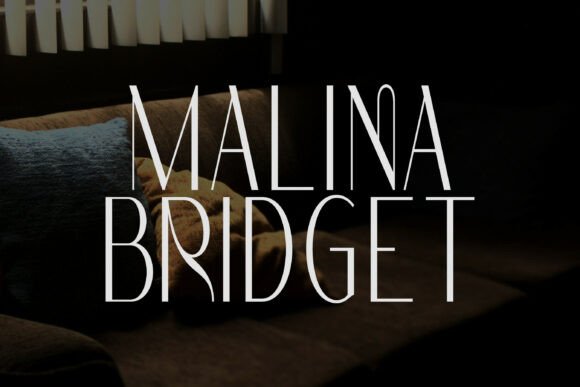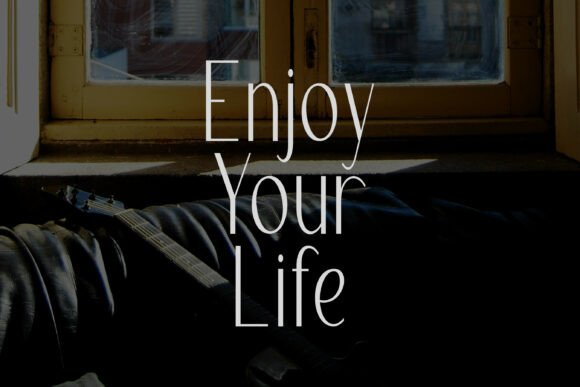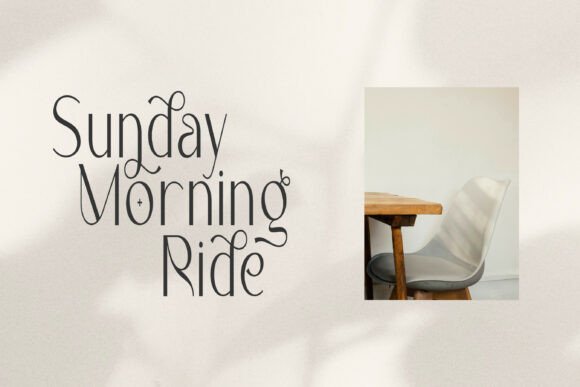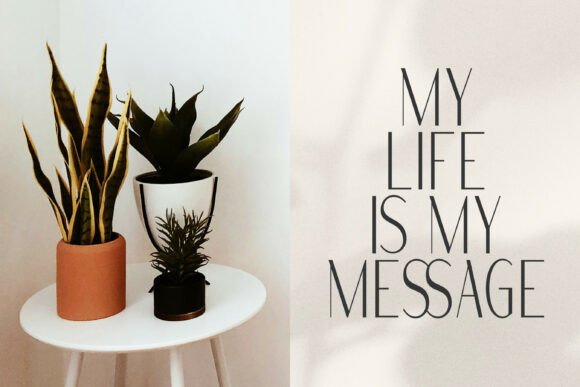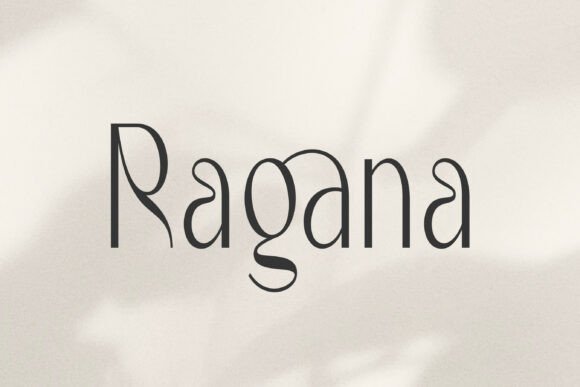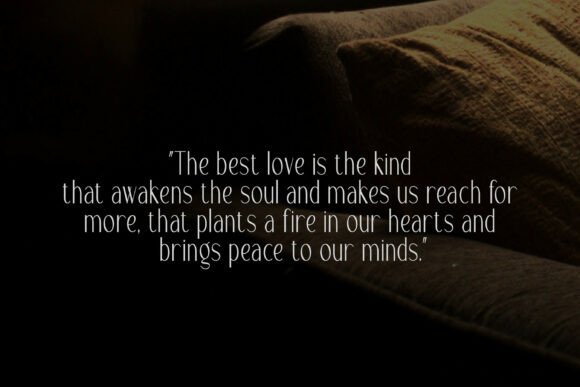
First Impressions: A Love Affair with Gauri
Gauri is a masterclass in balancing minimalism with personality. Its sleek letterforms are infused with subtle curvatures and artistic details, creating a refined yet distinctive look. This font is perfectly suited for editorial layouts, branding, and high-end design, bringing a touch of sophistication and creativity to every composition.
An Honest Review: The Good, the Bad, and the Quirks
- ✨ Elegant and refined aesthetic: Gauri’s sleek design makes it perfect for high-end branding and editorial projects.
- ✅ Excellent readability: The font’s clean lines and subtle curvatures ensure that it remains legible even at smaller sizes.
- 💡 OpenType features: Gauri supports a range of OpenType features, including stylistic alternates and glyphs, giving designers plenty of creative options.
Small Quirks and Limitations:
- 🤔 Limited availability of weights: Gauri is currently available in a limited range of weights, which may not be suitable for all design applications.
- ⚠️ Some glyphs may require manual adjustment: While Gauri’s glyph set is extensive, some users may need to make manual adjustments to achieve optimal results.
Exploring Alternatives: Similar Fonts to Gauri
The Story Behind Gauri: Designer Inspiration
Gauri was designed with the goal of creating a font that embodies elegance and sophistication without excess. The designer’s inspiration came from a range of sources, including classic typography and modern design trends. The result is a font that is both refined and distinctive, perfect for designers seeking a touch of luxury in their work.
Q: What is Gauri’s design style?
A: Gauri is a modern elegant sans serif font with a refined and distinctive look.
Q: What design applications is Gauri suitable for?
A: Gauri is perfect for editorial layouts, branding, and high-end design projects.
Q: Does Gauri support OpenType features?
A: Yes, Gauri supports a range of OpenType features, including stylistic alternates and glyphs.